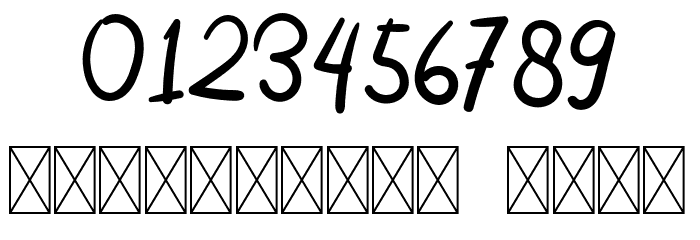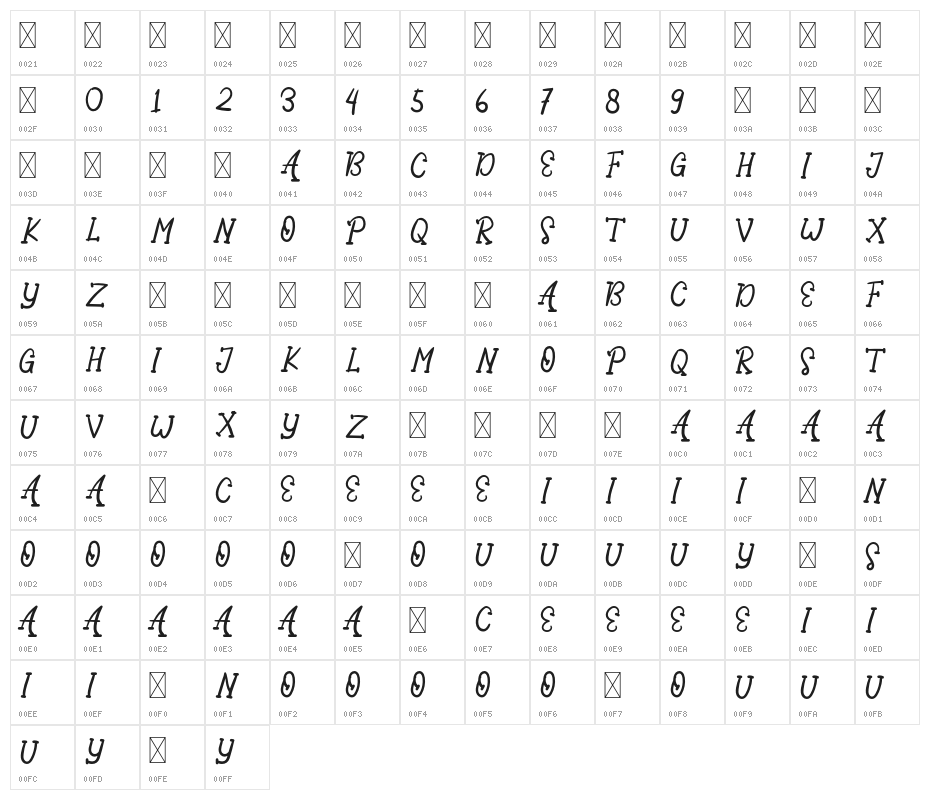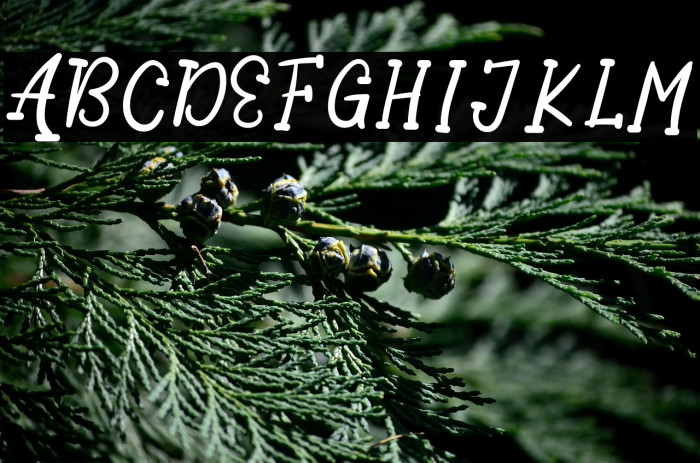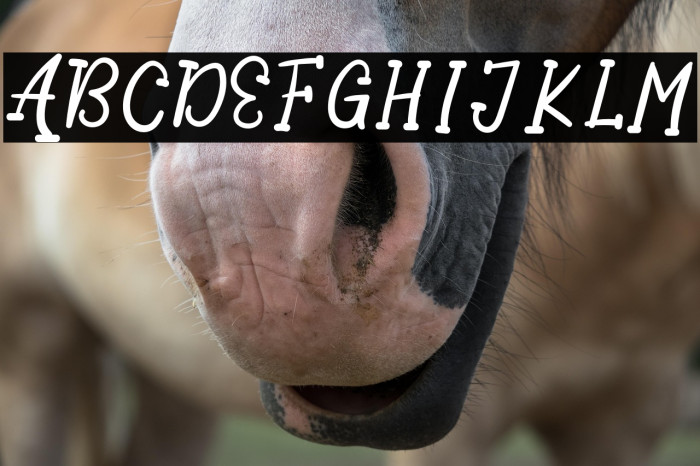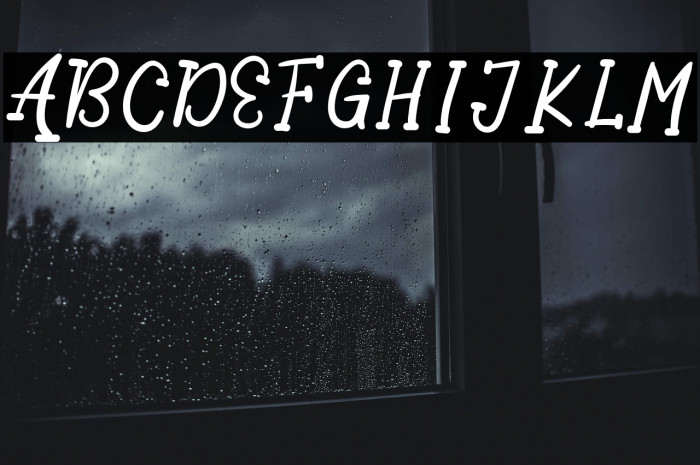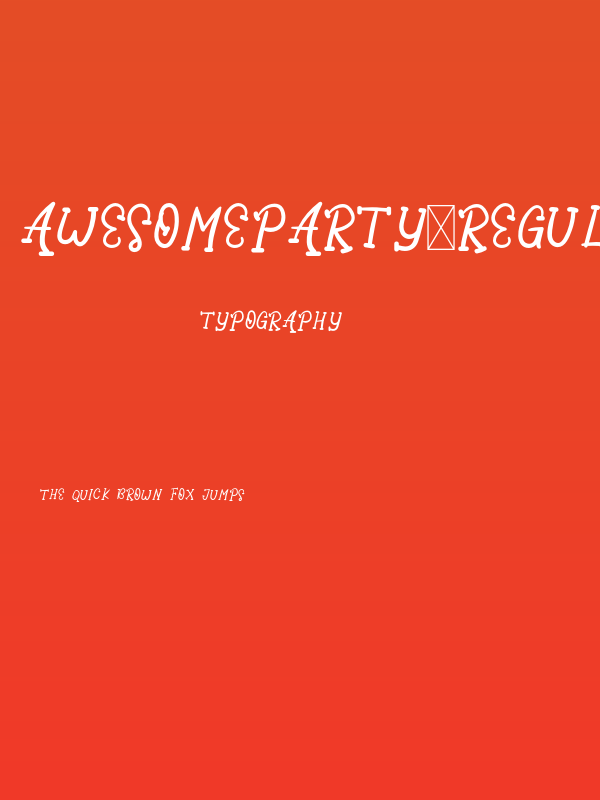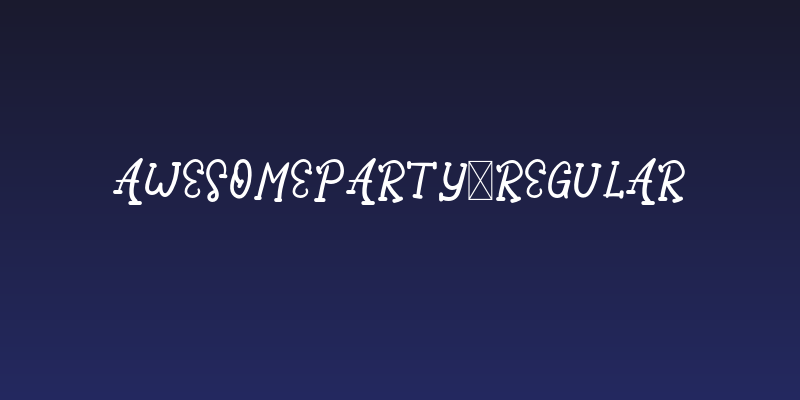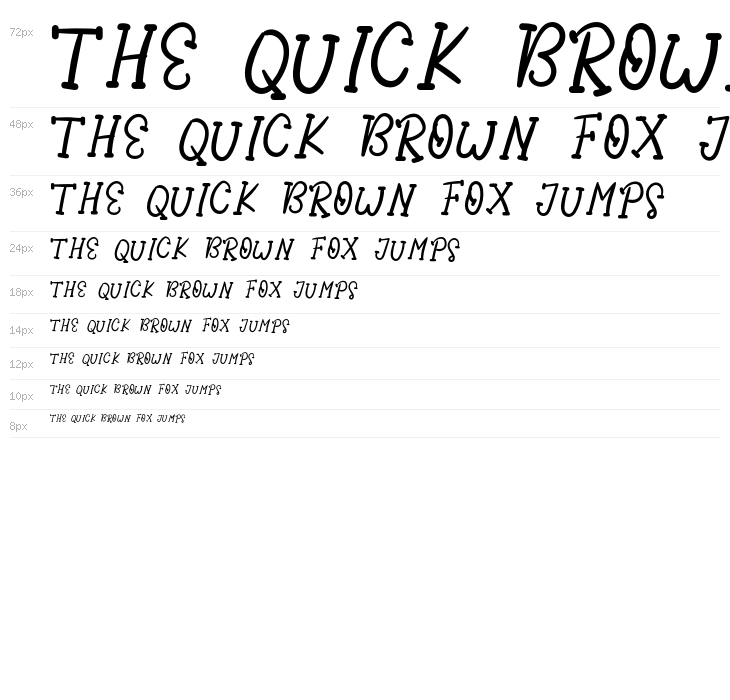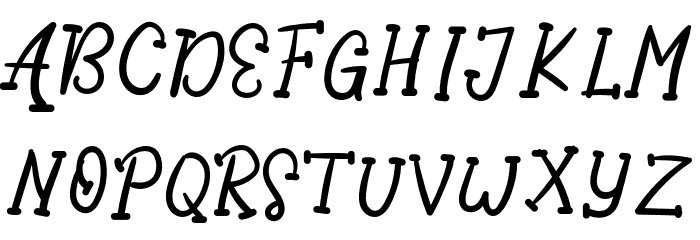
AwesomeParty-Regular Font
AwesomeParty-Regular Description
This font features a playful and dynamic style, characterized by its cursive, handwritten appearance. The letters are slightly slanted, giving a sense of motion and energy. The strokes are moderately thick, providing a bold presence without overwhelming the design. Each character has unique flourishes, adding to its whimsical and informal charm. The numbers follow the same playful style, ensuring consistency across all characters. This font is ideal for projects that require a fun and lively touch, such as party invitations, greeting cards, or children's book covers.
| Proposed Projects | Ideal for party invitations, greeting cards, children's book covers, and playful branding. |